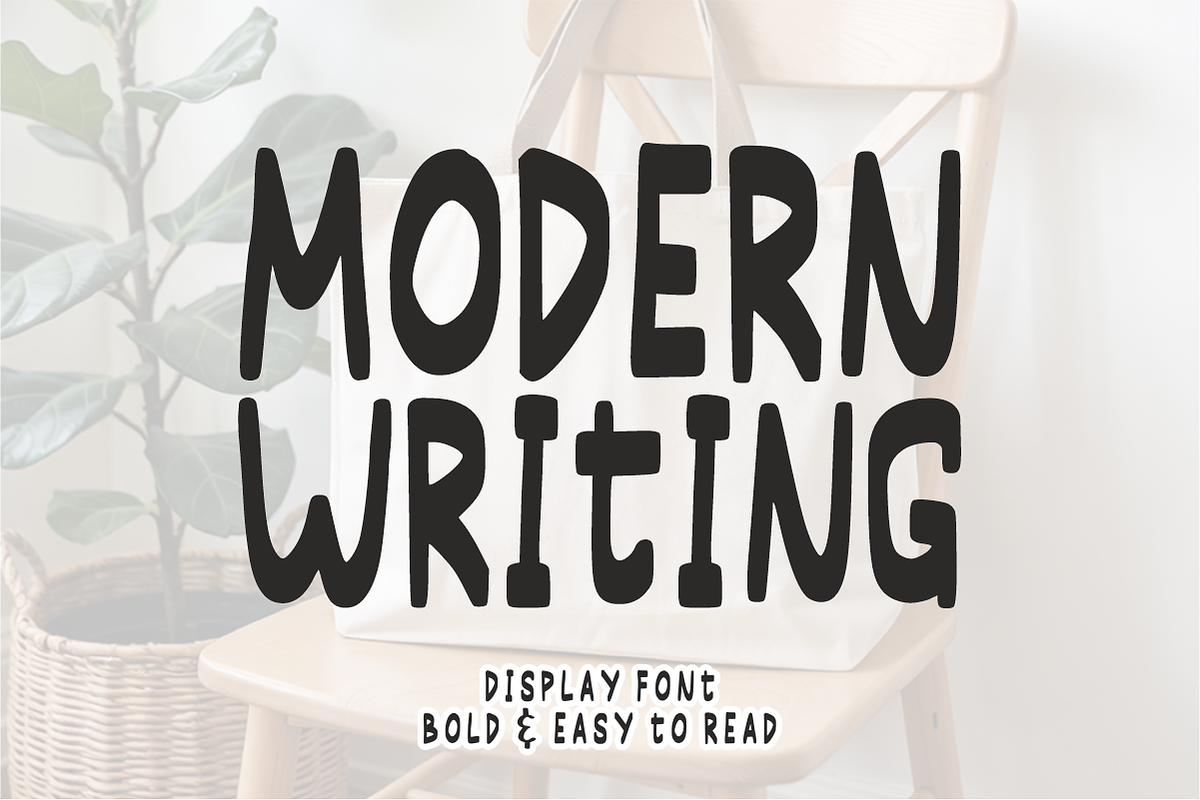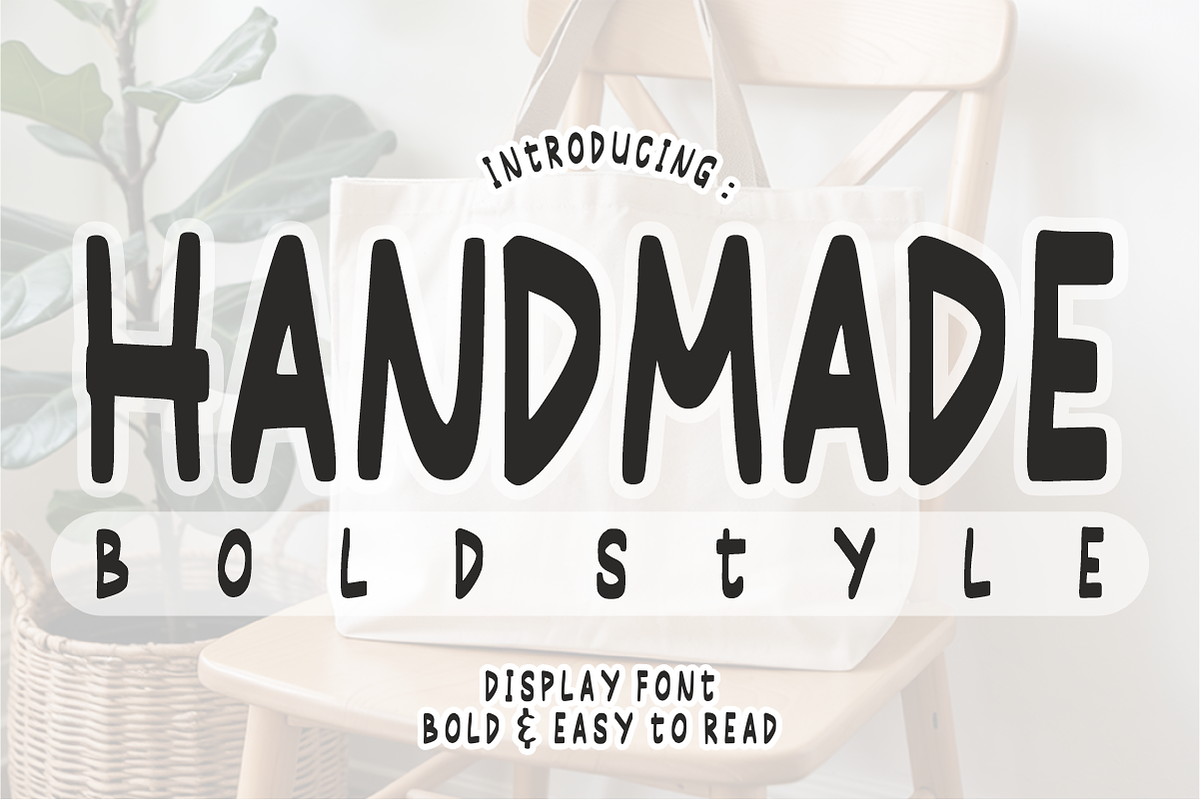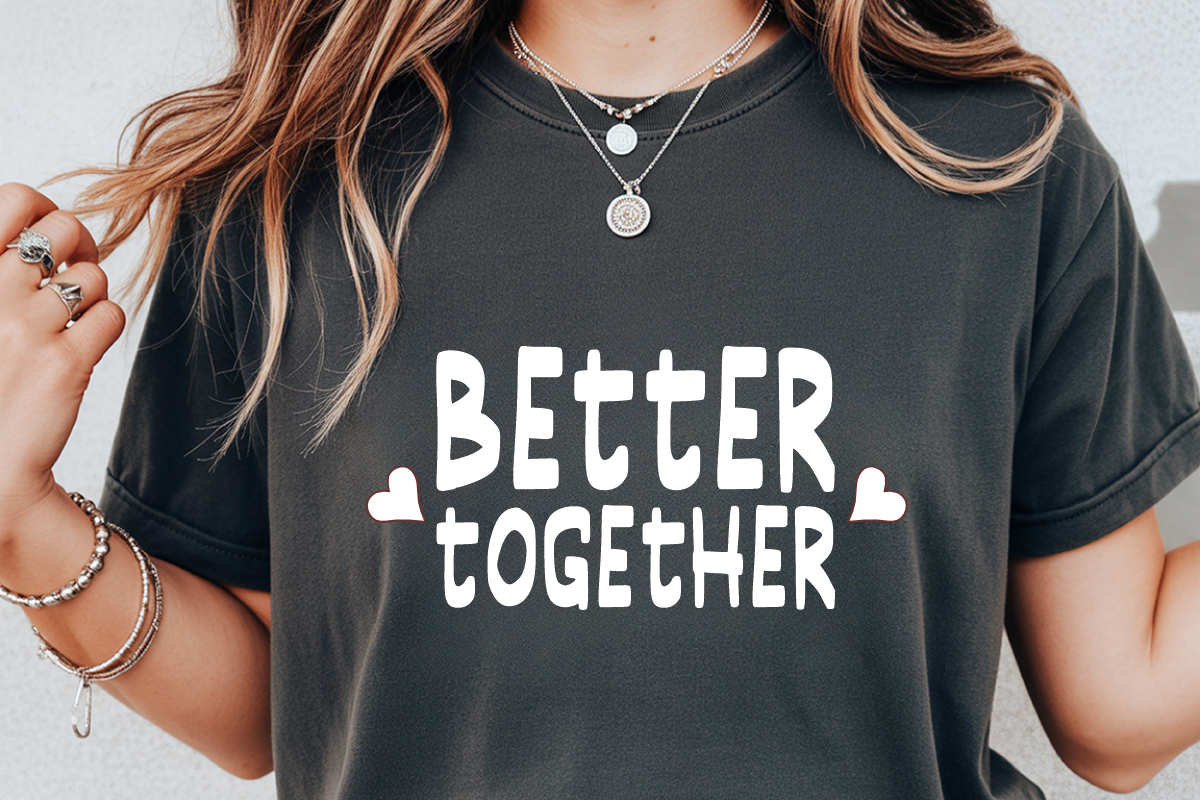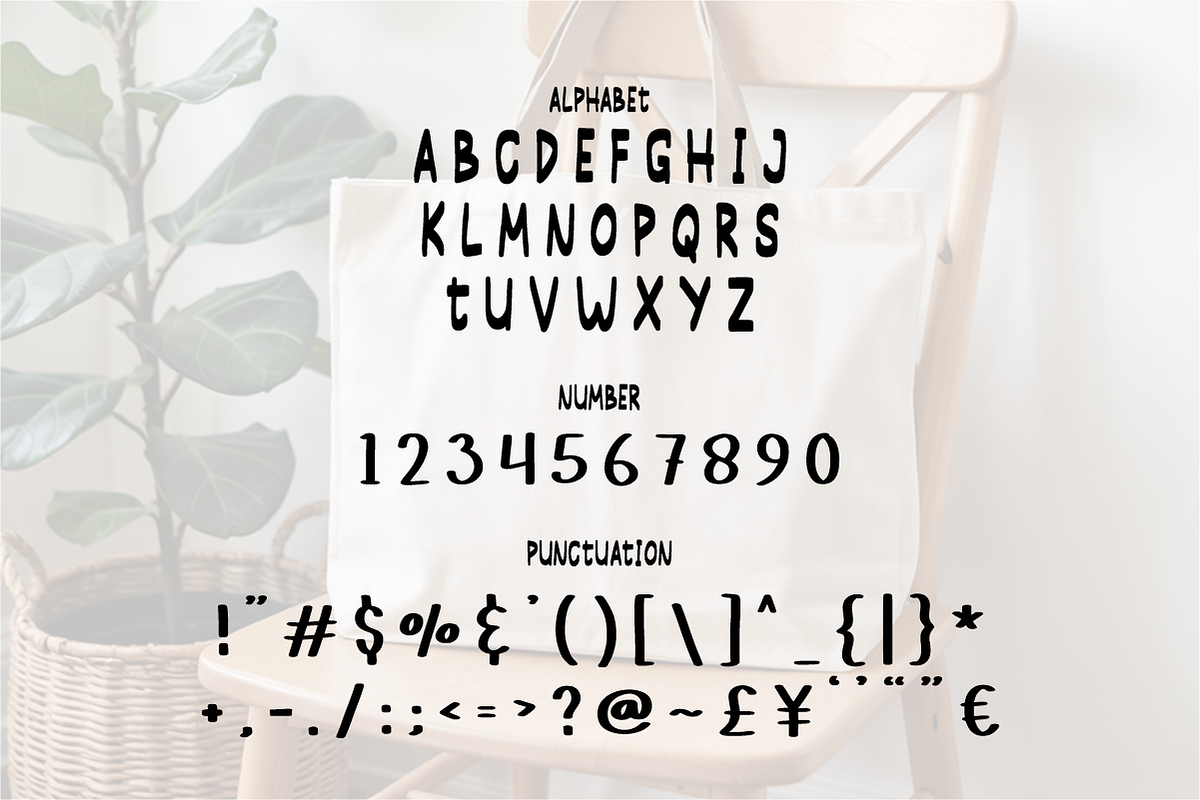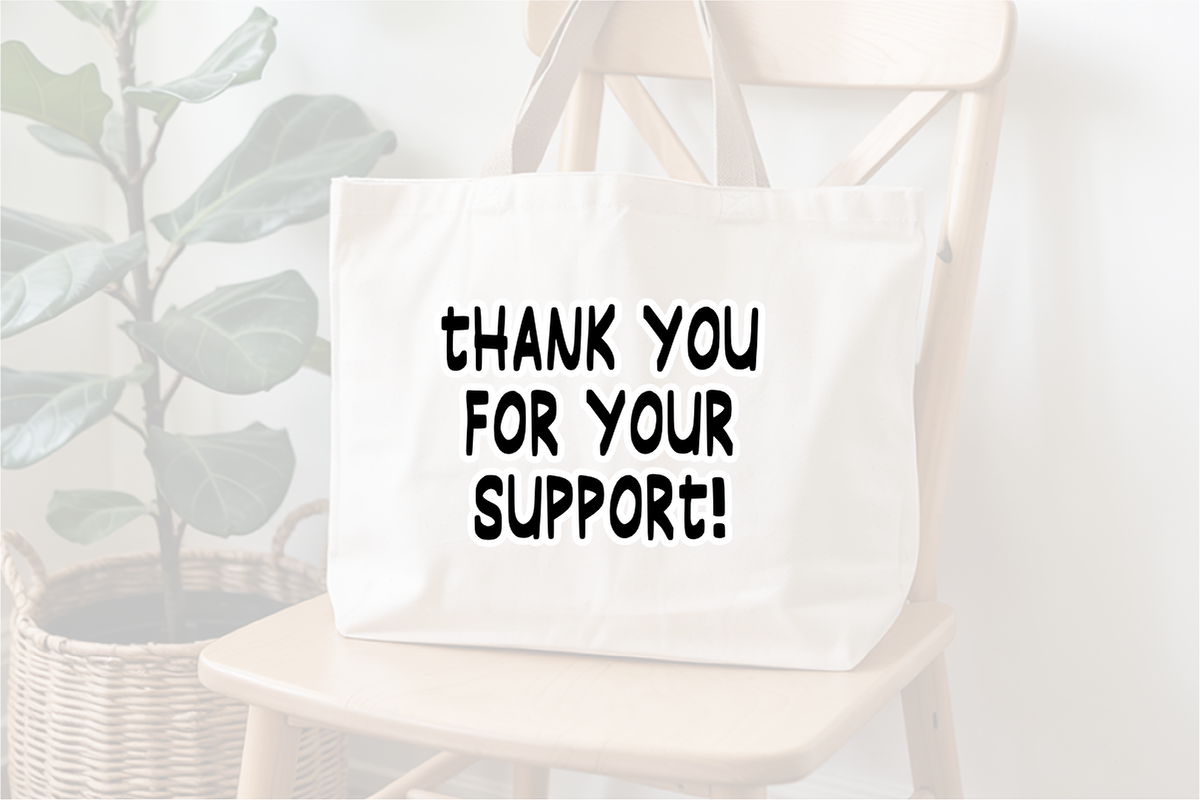
Bold Handmade - Cute Display Font
Bold Handmade is a tall, bold, and easy-to-read handwritten display font crafted with an organic, clean aesthetic. Designed for maximum legibility and versatile craft use, this charming font brings an authentic hand-drawn feel to tote bags, quotes, classroom printables, and DIY vinyl designs. Every character is cleanly vectorized to guarantee high-resolution prints and smooth, effortless cutting on Cricut and Silhouette machines.
Uppercase Character Set
Numbers & Basic Punctuation